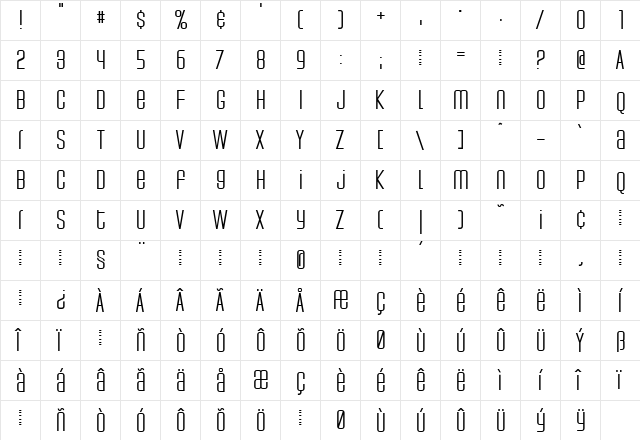
Weltron Regular
Design Context for Weltron Typeface
Weltron is a composed and adaptable typeface that performs quietly and consistently across a wide range of design contexts.